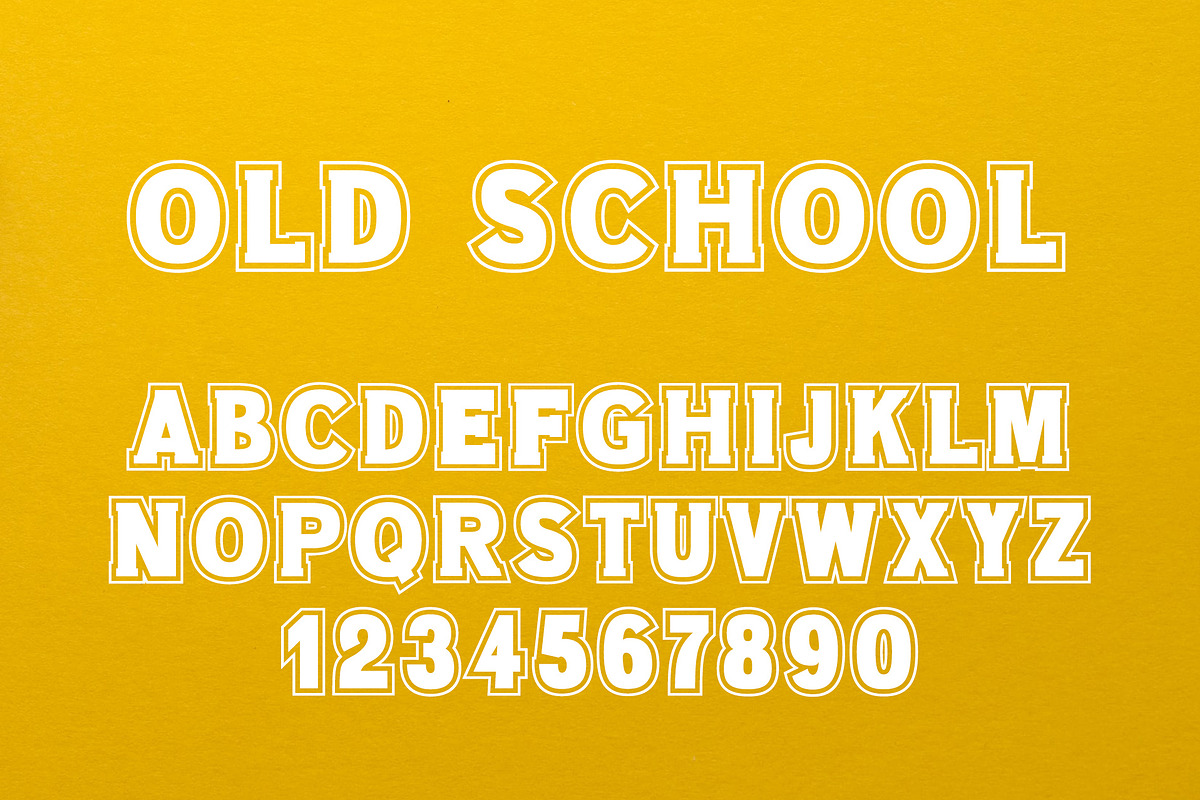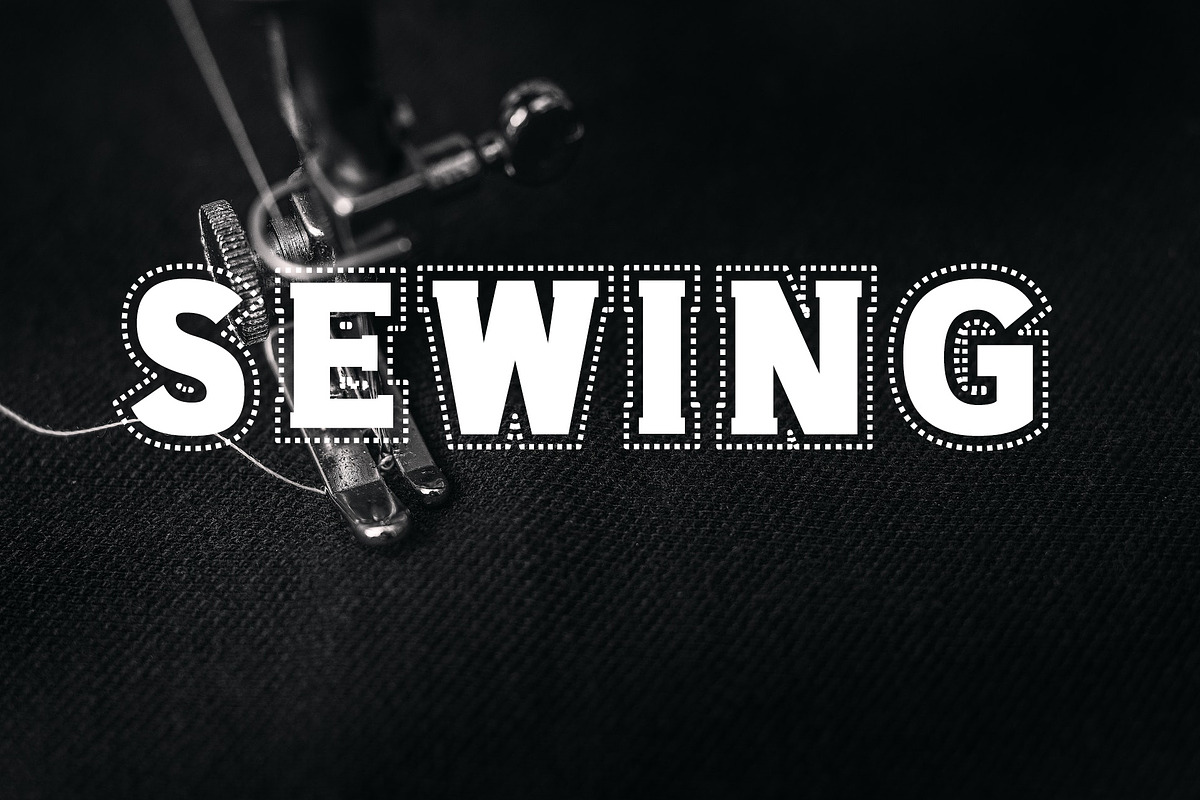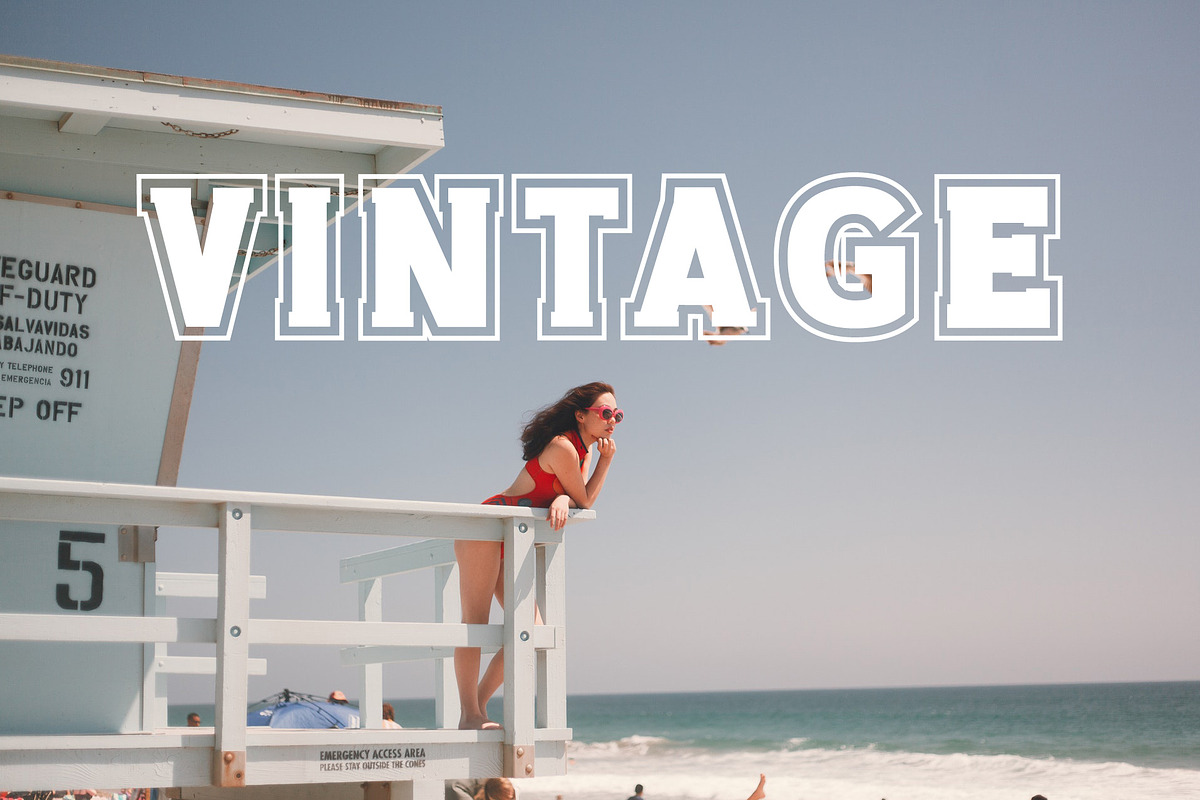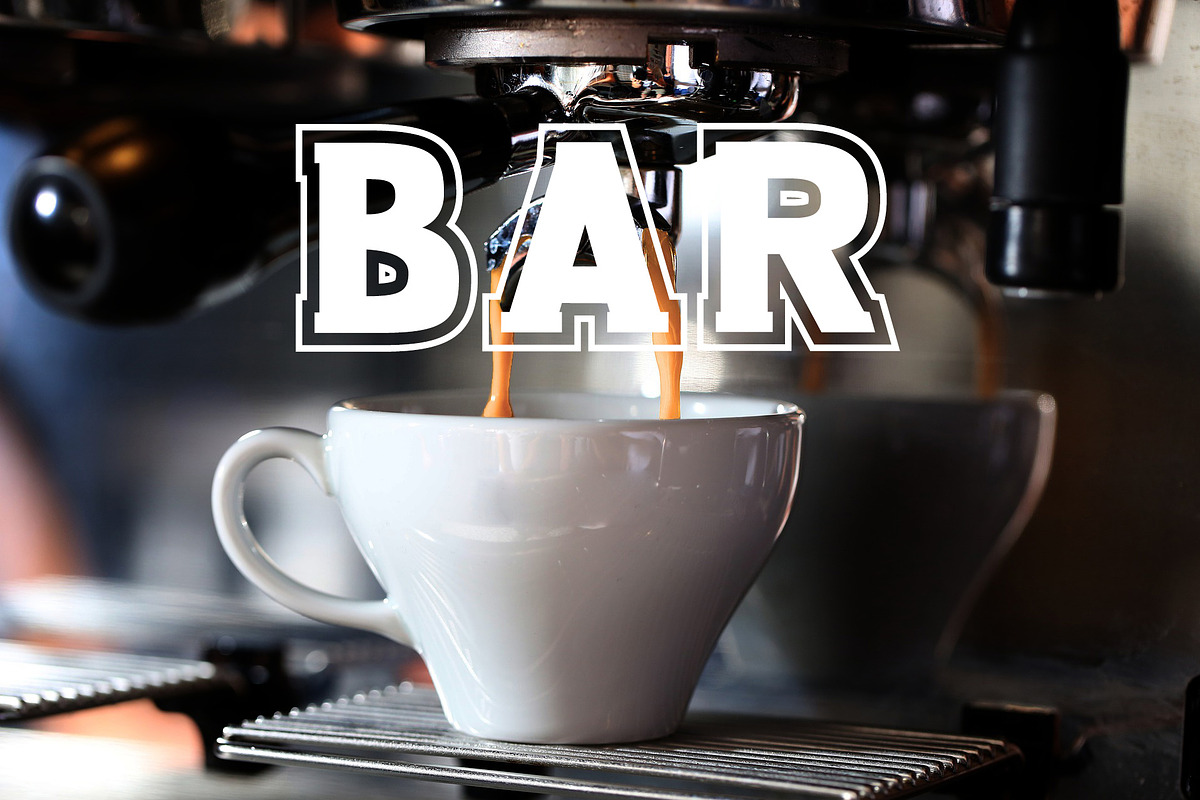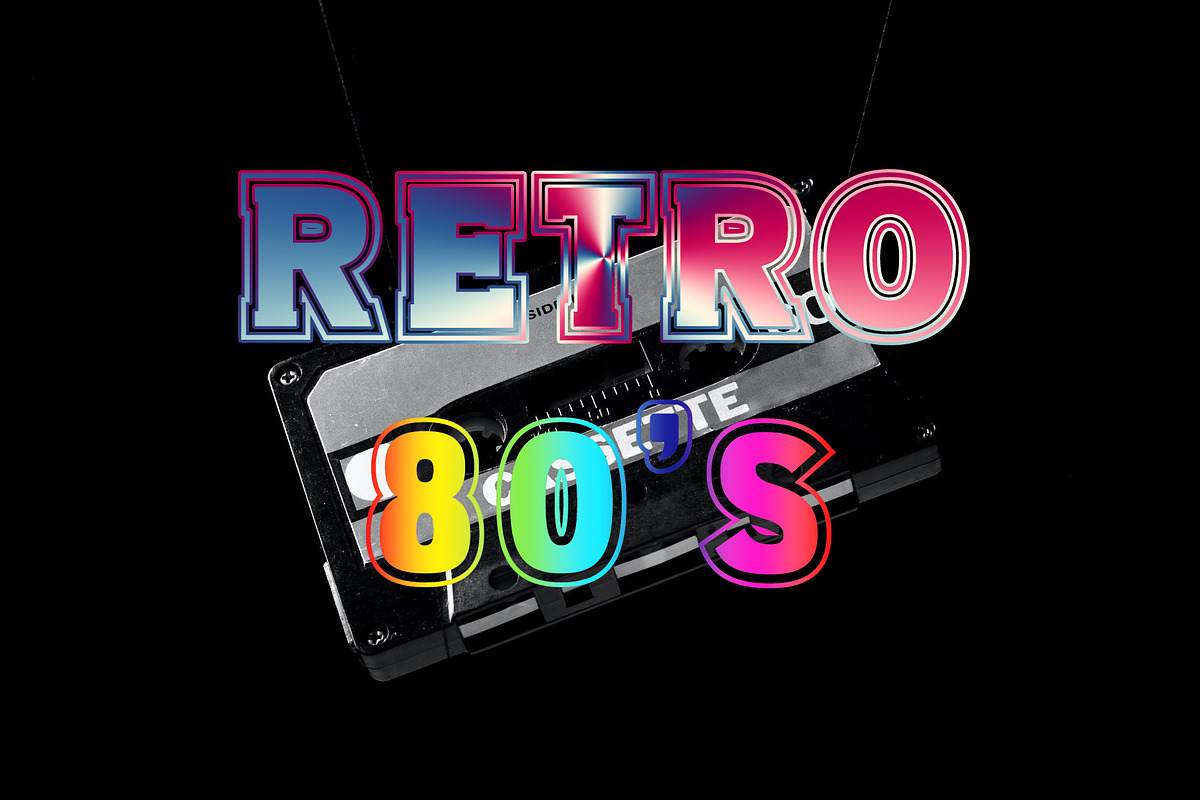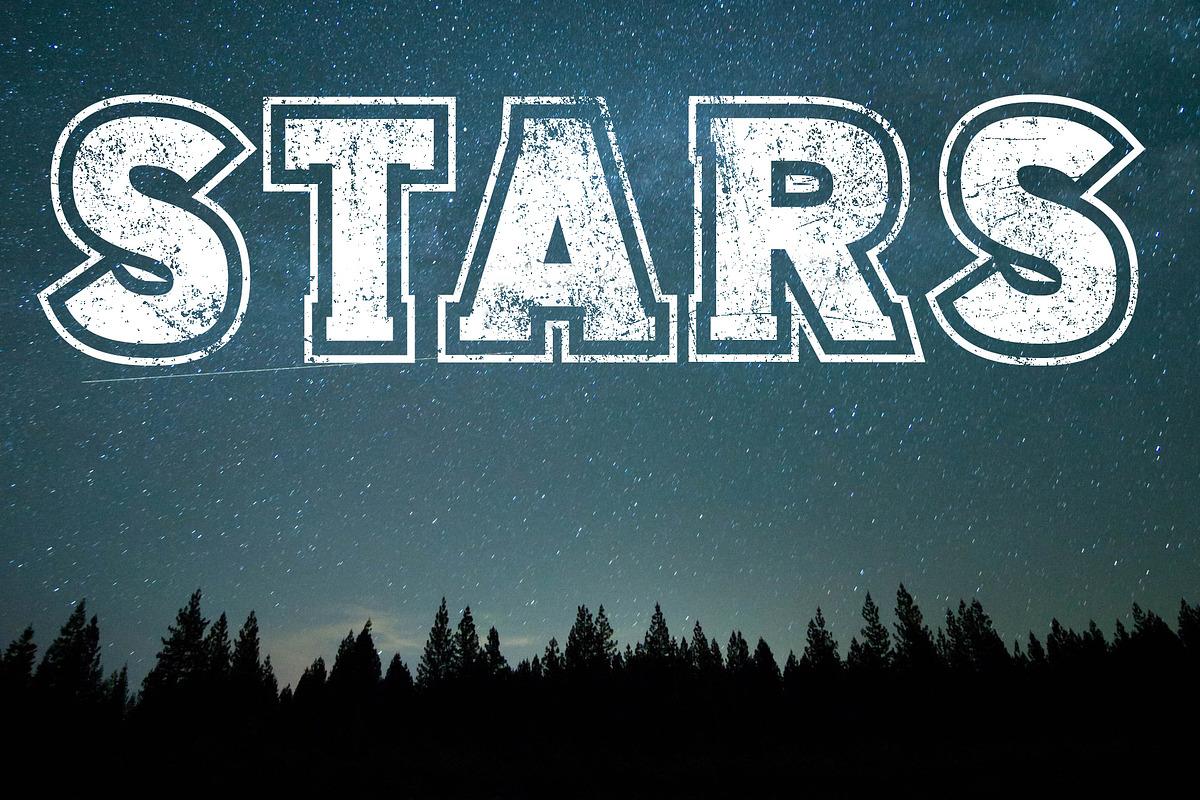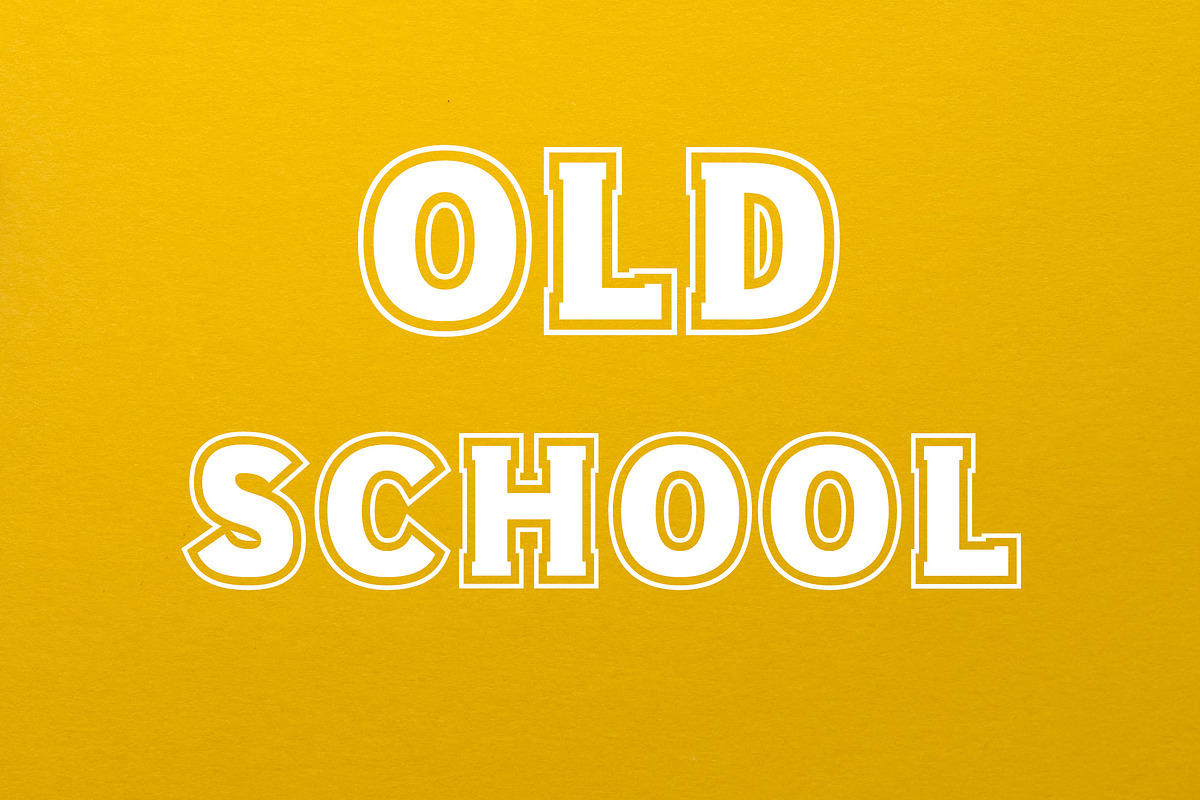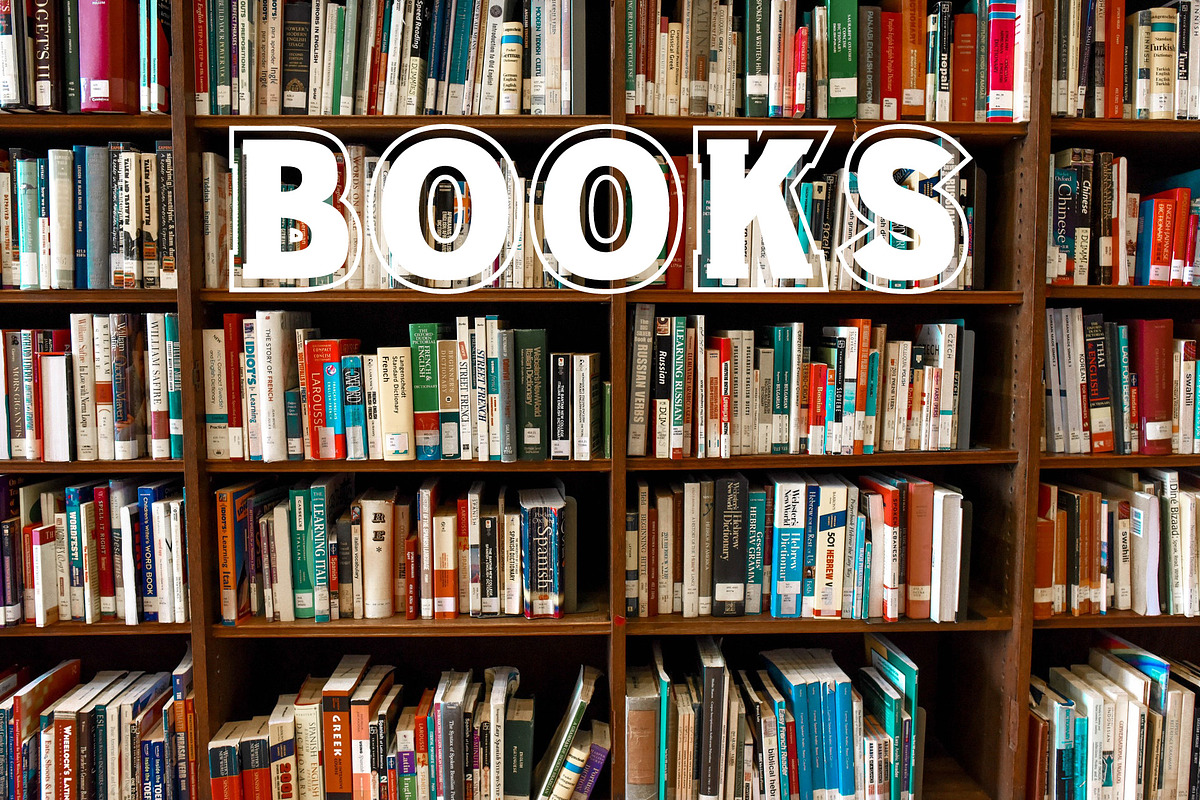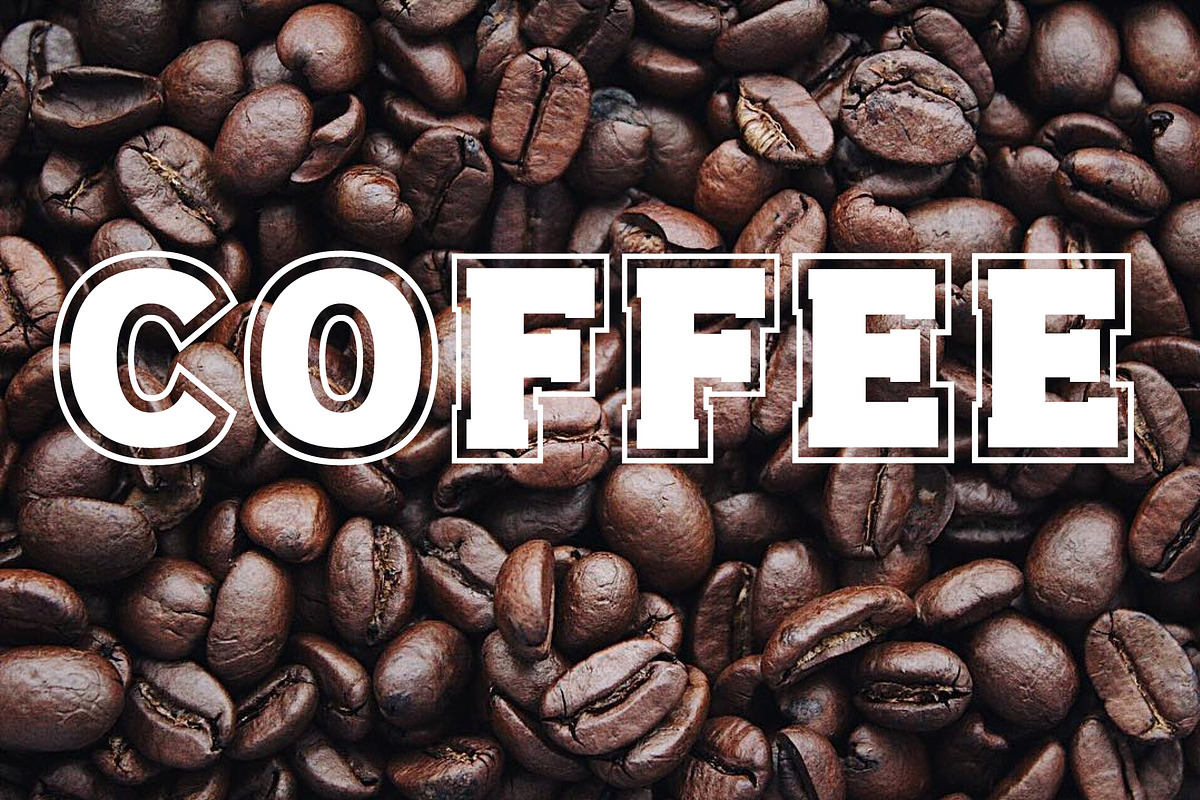
Old School 80s Font
Old School Retro 80's Font.
Old School is a bold and retro styled display font. It will add in incredibly unique touch to each of your creative ideas!
Old School is college sport like font with retro look.
It comes with to variances one is regular other with dashed border line.